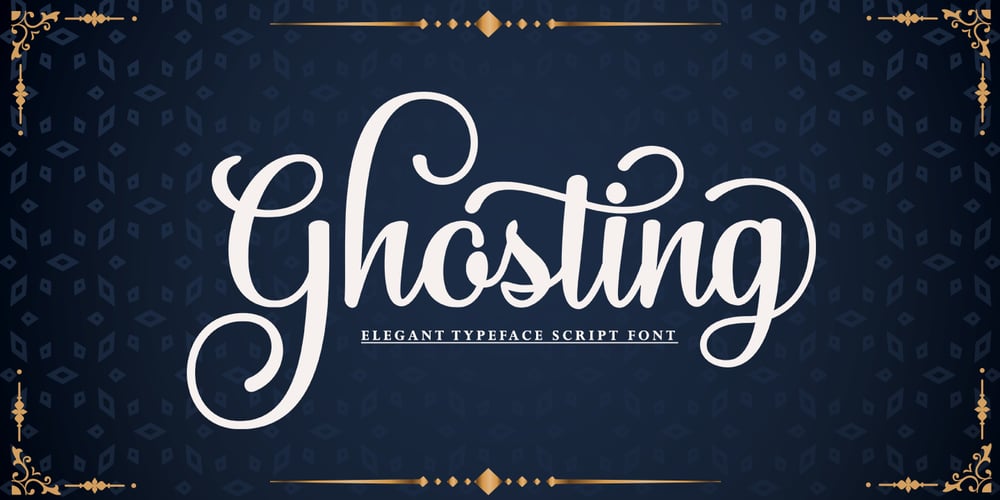
Ghosting Font Family was designed by Rahmad Rizky and published by Rhd Studio. Ghosting contains 1 styles and family package options. Ghosting Script is a calligraphic script font that comes with exquisite character changes, a kind of classic decorative copper script with a modern twist, designed with high detail for an elegant style.Ghosting Script is interesting because it is smooth, clean, feminine, sensual, glamorous, simple and very easy to read, because there are many fancy letter joints. I also offer a number of decent stylistic alternatives for multiple letters. Classic styles are very suitable to be applied in various formal forms such as invitations, labels, restaurant menus, logos, fashion, make up, stationery, novels, magazines, books, greeting / wedding cards, packaging, labels or all kinds of advertising purposes. .Ghosting Script has , including multiple language support. With OpenType features with alternative styles and elegant binding. The OpenType feature works automatically, but you can access it manually and for the best results required for your creativity in combining these Glyph variations.